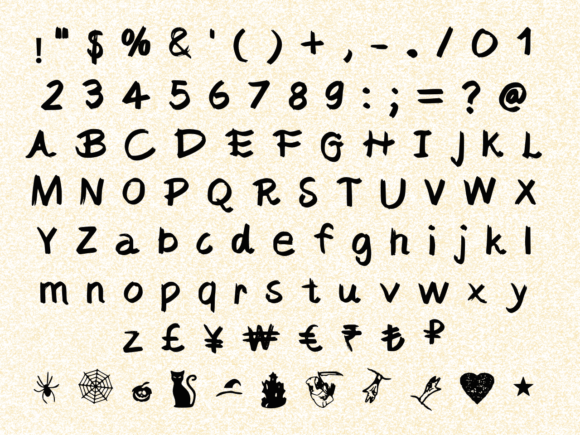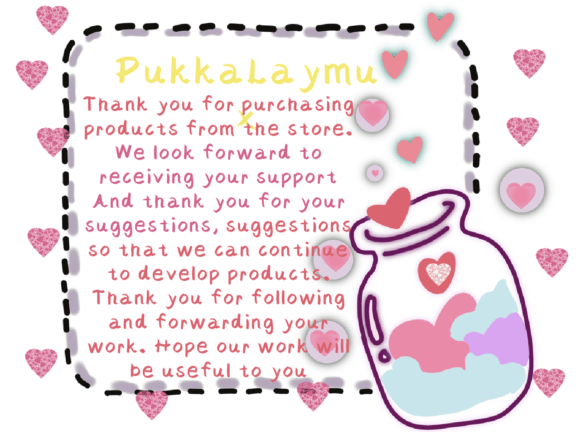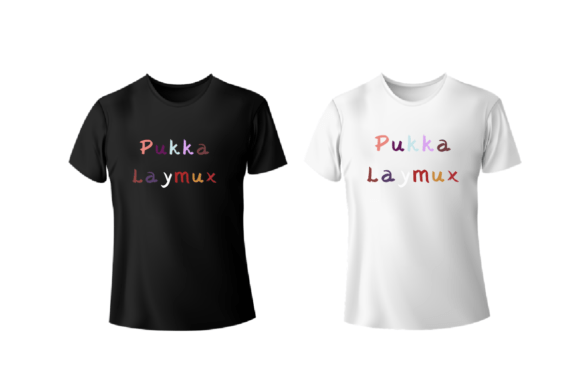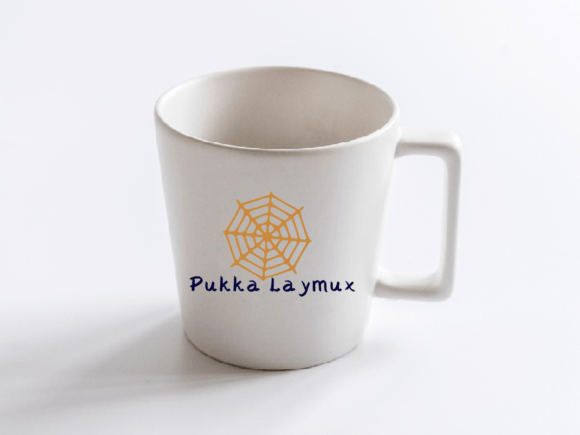
Pukka Laymux Font
Introducing Pukka Laymux, a fun and whimsical handwritten font designed to bring a natural and unique style to your creative projects. With its playful and distinctive nature, Pukka Laymux is incredibly fitting for a wide range of designs, and the only limit is your imagination!
The fun and whimsical characteristics of Pukka Laymux make it perfect for various applications. Imagine using it on greeting cards, posters, or any design that requires a touch of playfulness. Picture Pukka Laymux in digital designs or crafting projects, where its natural and unique style adds a delightful flair.